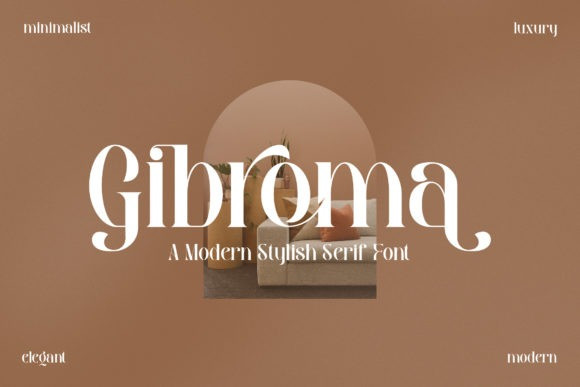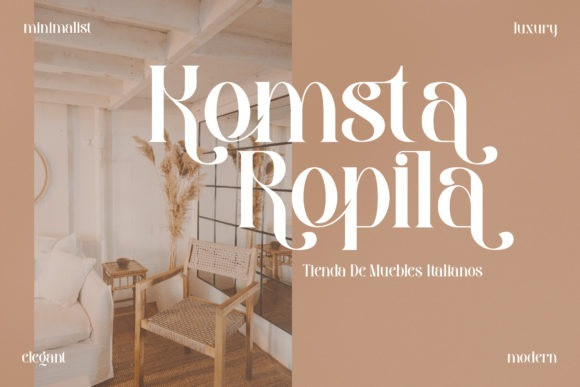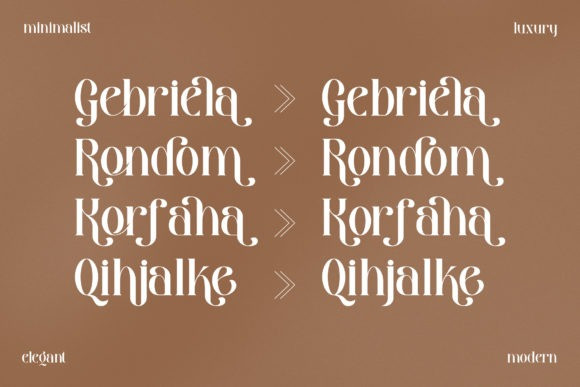
Gibroma Font
Proudly present Gibroma – a modern and classic serif typeface with its own unique style & modern look.
This typeface is perfect for an elegant & luxury logo, book or movie title design, fashion brand, magazine, clothes, lettering, quotes, and so much more.